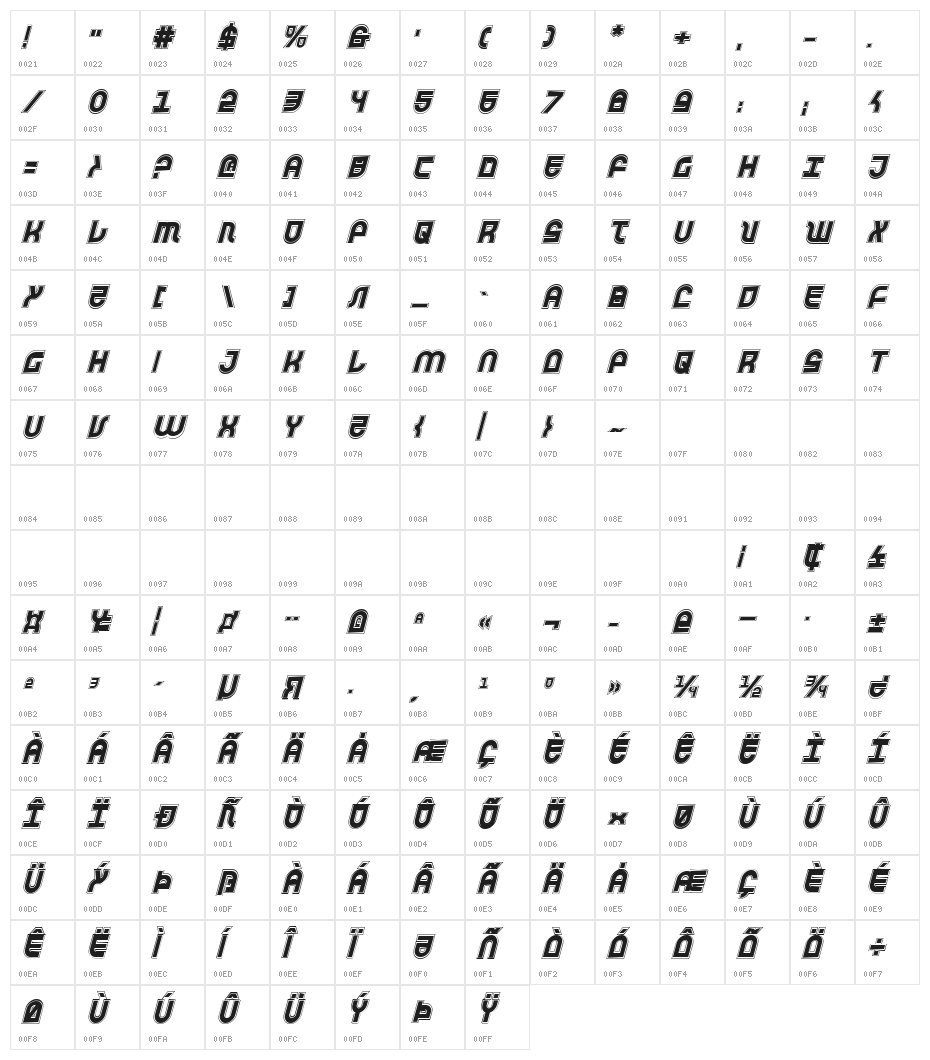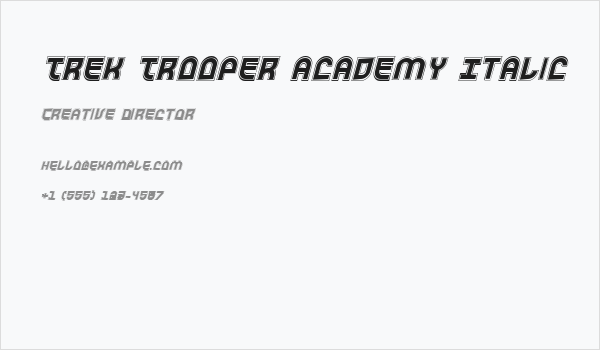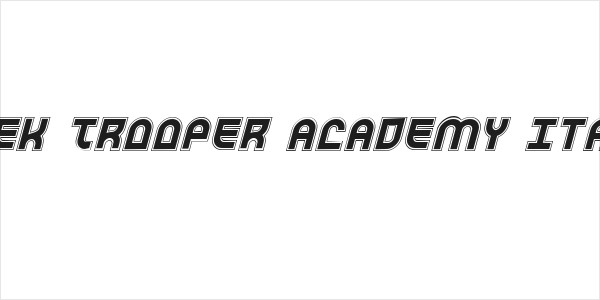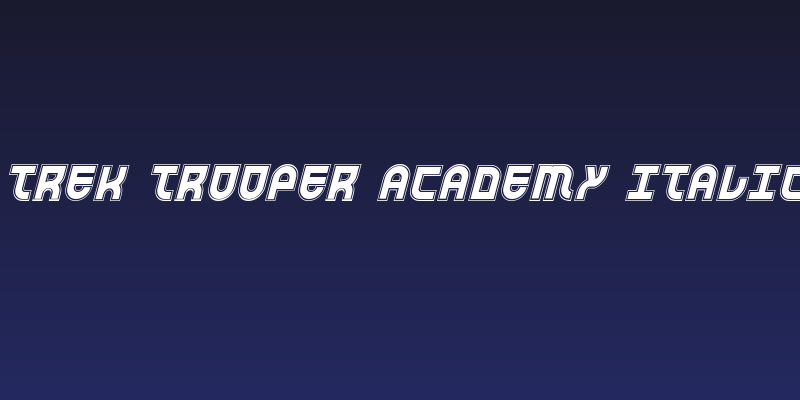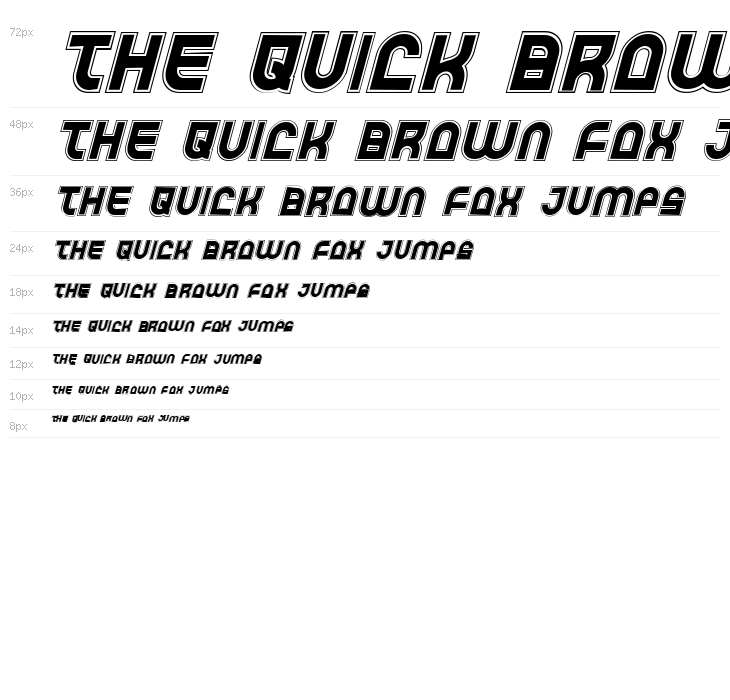
Trek Trooper Academy Italic Font
Trek Trooper Academy Italic Description
This font features a bold and futuristic design with a strong emphasis on geometric shapes and sharp angles. The characters are outlined, giving them a three-dimensional effect that adds depth and visual interest. The uppercase and lowercase letters maintain a consistent style, with a slight slant that enhances the italicized appearance. The numbers and special characters are designed to match the overall aesthetic, making the font cohesive and versatile. The bold strokes and outlined design make it ideal for attention-grabbing headlines and logos.
Overall StyleFuturistic
Proposed ProjectsIdeal for sci-fi themed projects, technology branding, video game titles, and futuristic posters.